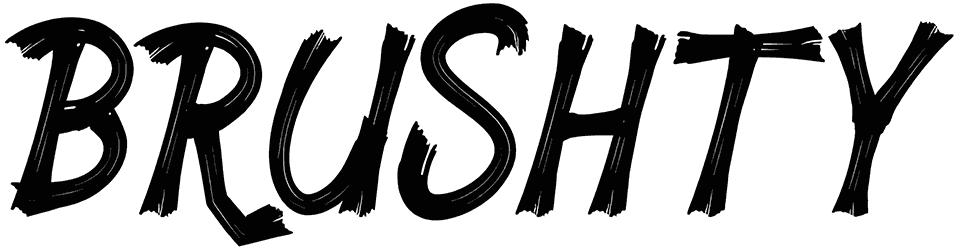
Brushty Font
The feeling behind a modern brush font like Brushty will create captivating words for your design. The natural details of this script font can add such a cool and urban vibe to your words. Almost full character cover provides you with a great chance, and you have the freedom to use it for many topics, like banners, books, or the same.